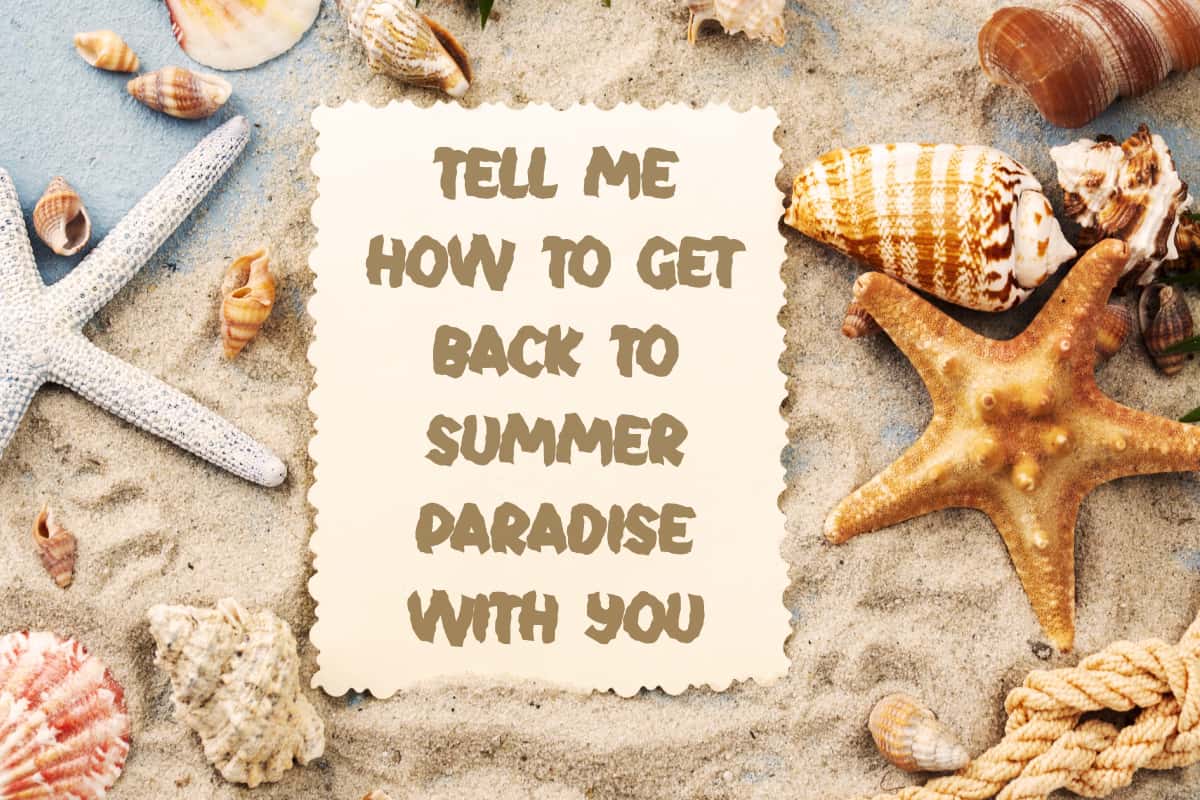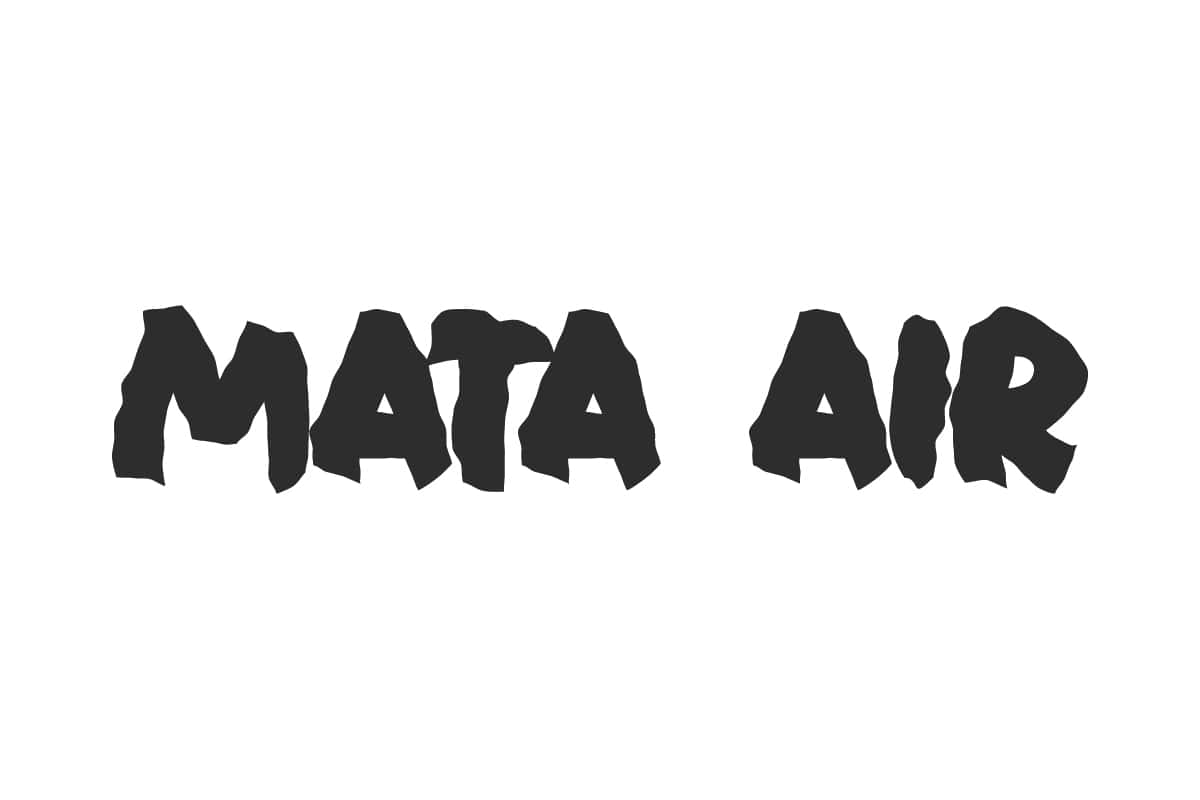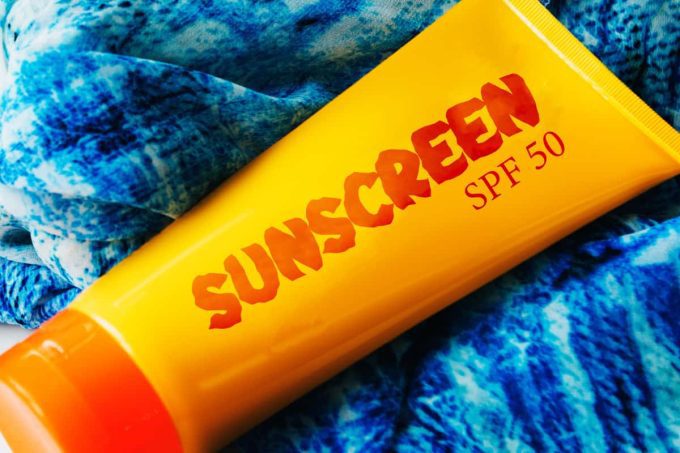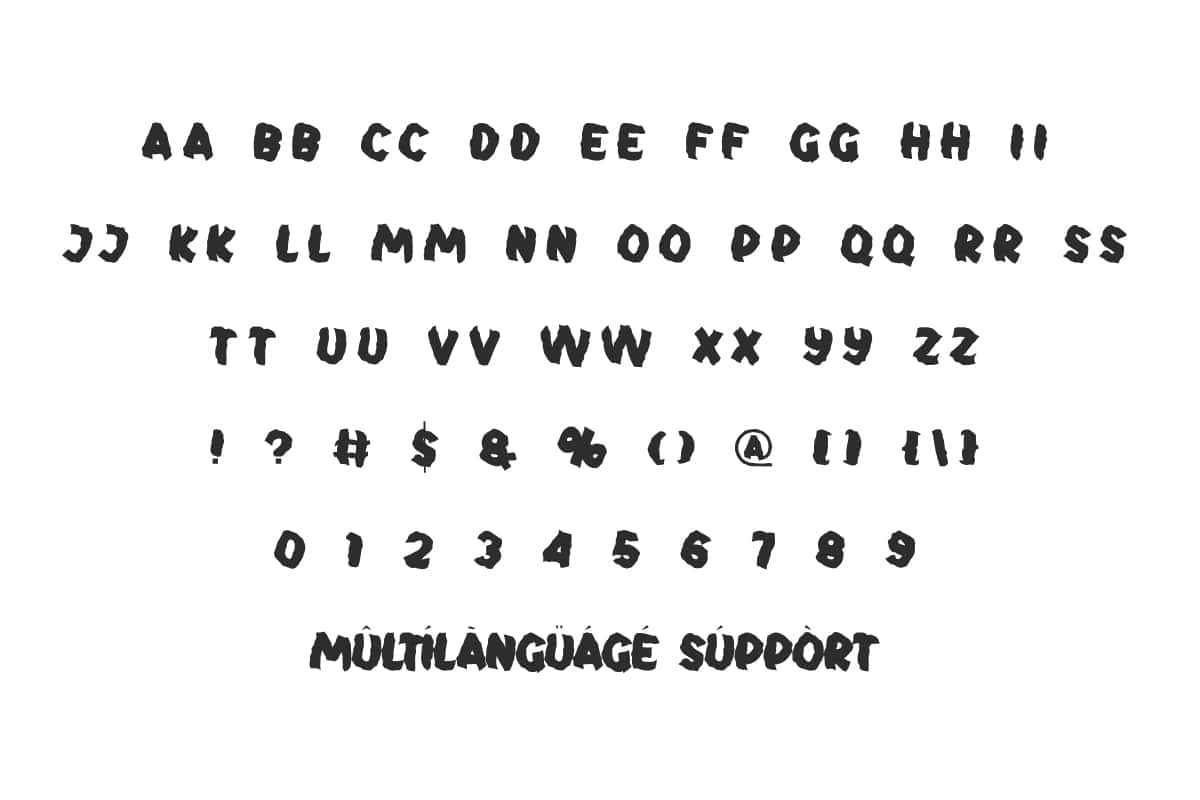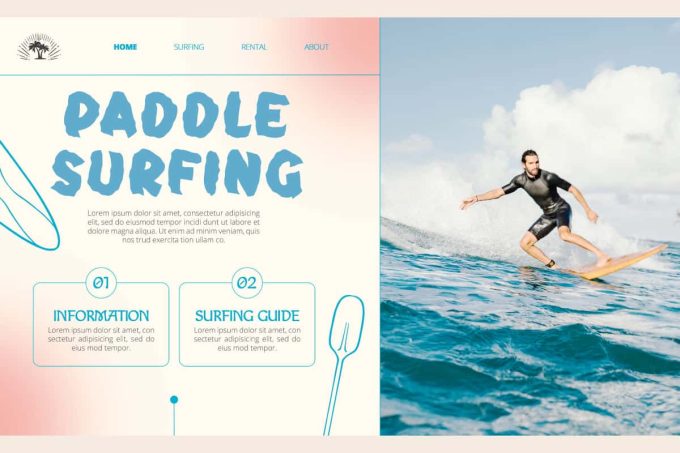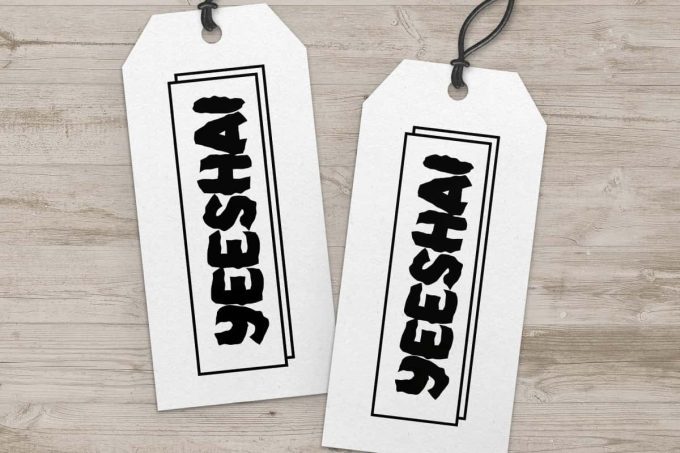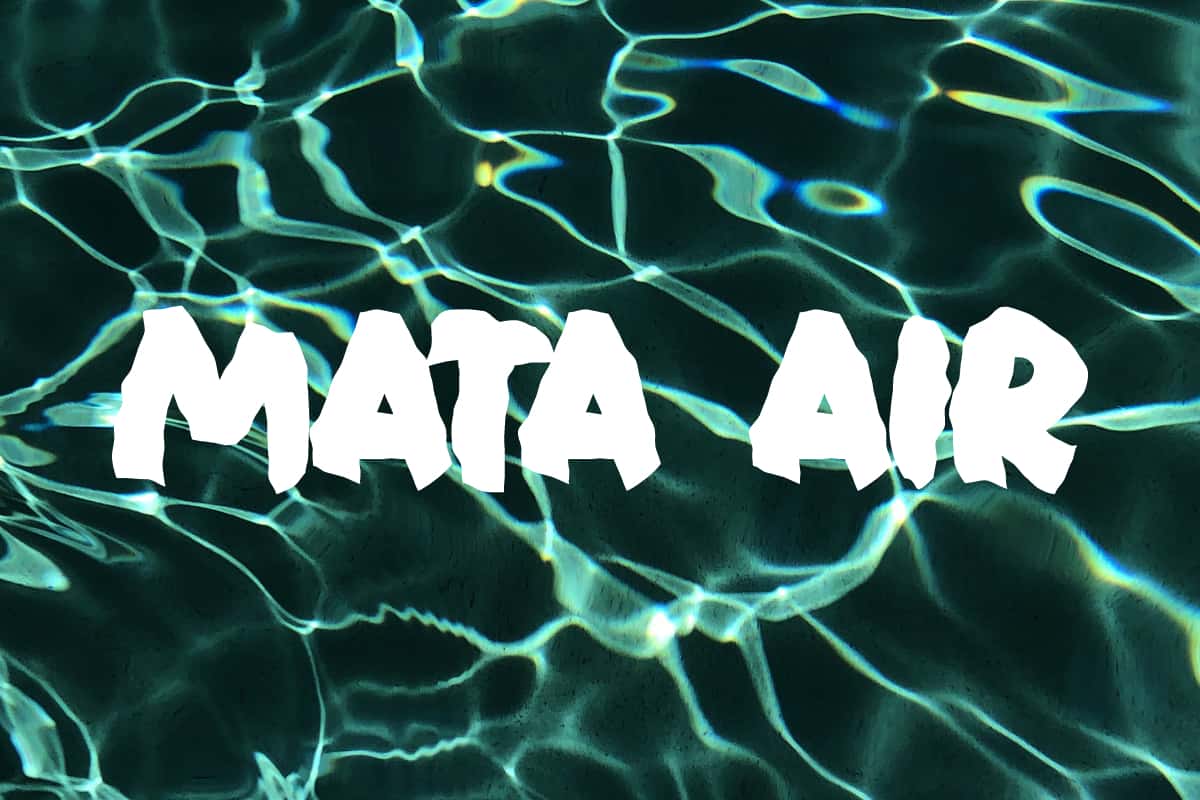
Mata Air Font is a heavy and quirky display font with impressive rough textured. This font is suitable for adventure games, movies, ads etc.
Mata Air Font is Display a bold and impressive rough textured display font. Each character of this font has irregular jagged curves making it look different and unique. The font is suitable for blogs, branding logos, headers, headline, labels, mockup, packaging design, posters, print on fabrics, quotes, stickers, template, text art on background, website, and many more.
Mata Air Font includes a complete set of ALL CAPS for Uppercase and Lowercase Characters, Numbers, Punctuation, Symbols and Alternates. This font is a handcrafted creative typeface designed for innovation in the font world. It will be perfect for accessories, apparel, aquatics, cosmetic, fashion, graphic design, handicrafts, photography, skincare, sports, web design, writer and much more.